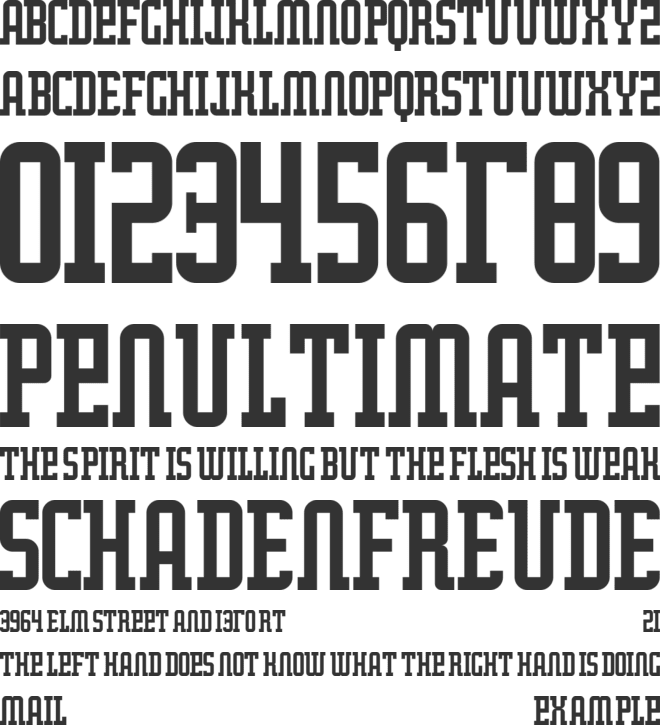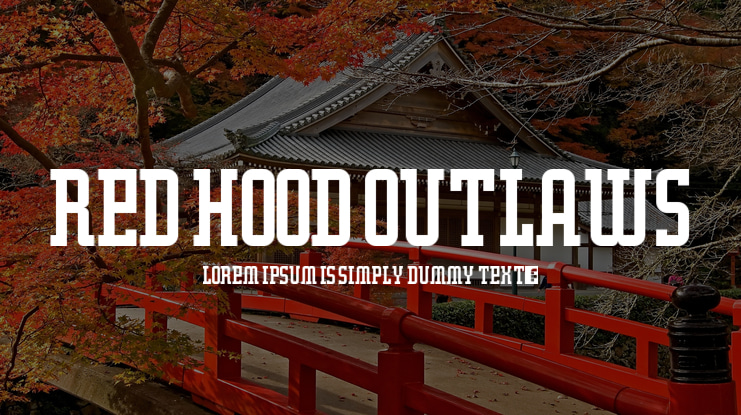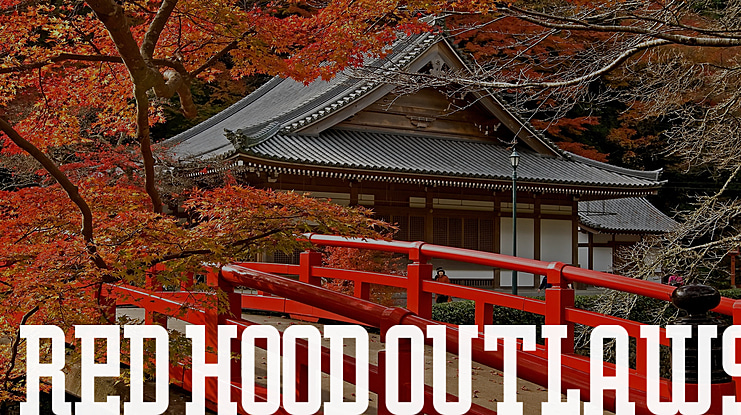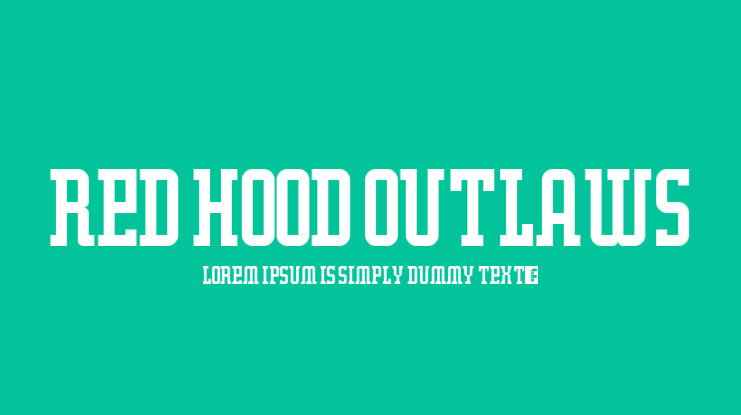
Red Hood Outlaws Font
Hilton Santos (Jay Killer)
Fan-Font inspired by the comic Red Hood and the Outlaws of DC that is part of the DC Universe: Rebirth of 2016.